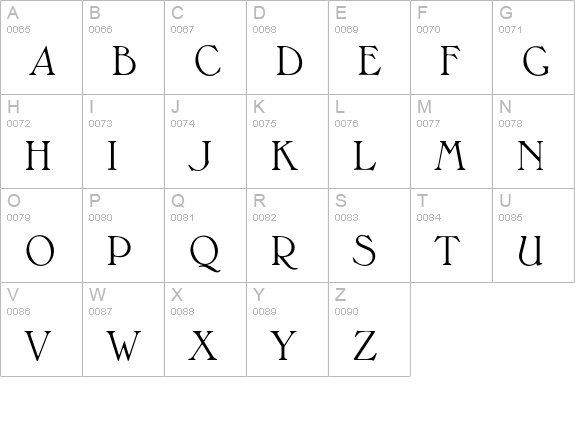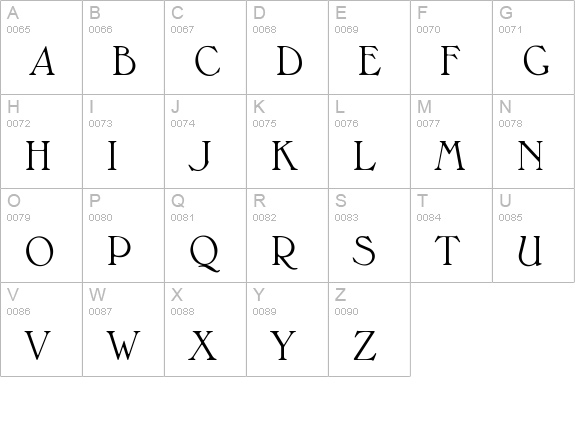
Melborne-Light is a refined, elegant variant in the Melborne typeface family \xE2\x80\x94 well suited to elegant body text, refined sub-headings, and luxury branding.
Introducing Melborne-Light font, a modern and elegant typeface that will add a touch of sophistication to your design projects. With its sleek lines and stylish curves, this font is perfect for creating eye-catching logos, branding materials, and more. The Melborne-Light font exudes a sense of class and professionalism, making it a versatile choice for a wide range of design applications. Best of all, Melborne-Light font is available for free download at FontsMarket.com. Whether you're a seasoned designer looking to refresh your font collection or a beginner searching for the perfect typeface, Melborne-Light font is sure to impress. Don't miss out on this opportunity to elevate your designs with this stunning and versatile font. Download Melborne-Light font today and start creating beautiful and impactful designs!